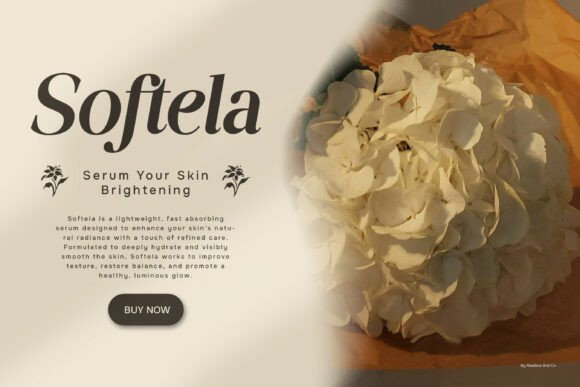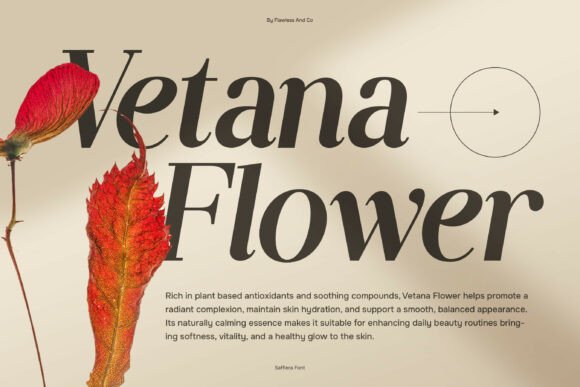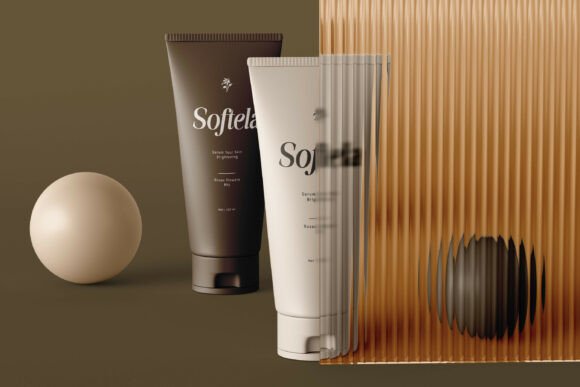
Introduction to Saffiera Font
Saffiera is a beautiful and classy serif font that captures the essence of elegance and modern beauty.
Designed with graceful curves and well-balanced letterforms, Saffiera brings a luxurious and sophisticated feel to any design Its stylish details and smooth contrast make it perfect for creating visually stunning typography that feels both timeless and contemporary.
Key Features of Saffiera Font
Why Choose Saffiera Font?
Saffiera Font offers exceptional quality and versatility, making it a valuable addition to your design toolkit. Whether you’re creating for personal projects or commercial use, Saffiera Font delivers professional results.